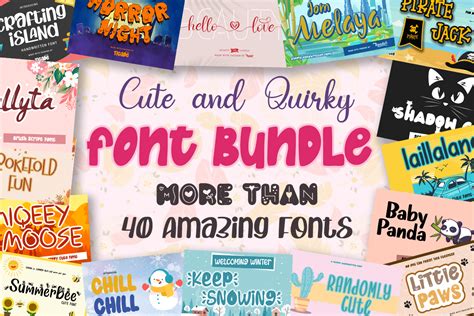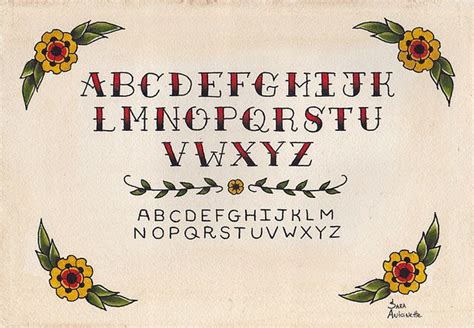
Procreate, a powerful digital art application for iPad, has revolutionized the way artists create, especially within the realm of tattoo design. A crucial element in bringing a tattoo concept to life digitally, or even for creating flash sheets and client consultations, is the selection of appropriate fonts. The world of tattoo fonts for Procreate is vast and varied, encompassing a multitude of styles that cater to every aesthetic imaginable. From the sweeping elegance of calligraphy to the bold, raw energy of graffiti, and the timeless charm of traditional lettering, these fonts offer a digital canvas for expressing intricate and impactful typography.
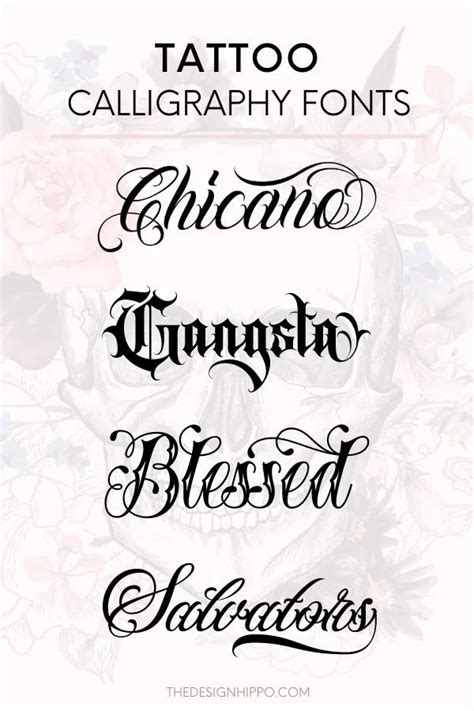
The Allure of Calligraphy Fonts in Procreate
Calligraphy fonts offer a sense of fluidity, elegance, and a deeply personal touch, making them a popular choice for Procreate tattoo designs. These fonts often feature beautiful, sweeping strokes that can evoke a romantic or sophisticated feel. Whether it’s a classic, elegant script with delicate flourishes or a more modern interpretation with bolder lines, calligraphy fonts allow for a dynamic range of expression. Some calligraphy fonts are designed with an organic texture, mimicking the natural imperfections and character of hand-drawn ink, while others boast unique angled strokes that create a distinct visual rhythm. The versatility of these fonts means they can be adapted for various design projects beyond tattoos, including fashion posters, apparel branding, and decorative elements, adding a touch of refined artistry to any creation.
For those seeking a romantic look and feel, modern calligraphy fonts present a captivating option. These fonts often combine the grace of traditional script with contemporary design sensibilities, offering a fresh and stylish aesthetic. Many of these modern calligraphy fonts are PUA encoded, which means they include a wide range of extra characters, ligatures, and stylistic alternates. This encoding unlocks a wealth of creative possibilities, allowing users to customize their lettering with swashes, extended Latin characters, and unique ligatures, ensuring a truly bespoke outcome for their Procreate designs.
Handwriting Fonts: The Personal Touch in Digital Art
Handwriting fonts bring an informal, approachable, and distinctly personal feel to digital art, making them an excellent choice for Procreate users looking to add a unique touch to their projects. These fonts can be perfect for lettering in comics, imbuing artwork with a hand-drawn feel, or simply for adding a casual, relatable element to designs. The spectrum of handwriting fonts is broad, ranging from neat and uniform styles to more free-flowing and expressive letterforms.
Some handwriting fonts emulate a bubbly, informal style, offering a playful character that can be amplified by variations in the baseline, giving the text a lively and energetic appearance. Others might incorporate serifs, reminiscent of traditional print, but with the relaxed sensibility of handwriting. The organic variety found in some handwriting fonts mimics the natural inconsistencies of human script, adding authenticity and charm. These fonts are ideal for a wide array of applications, from personal journaling-style artwork to branding that seeks a friendly and accessible voice. They can even be used for display purposes where a unique, characterful font is desired.
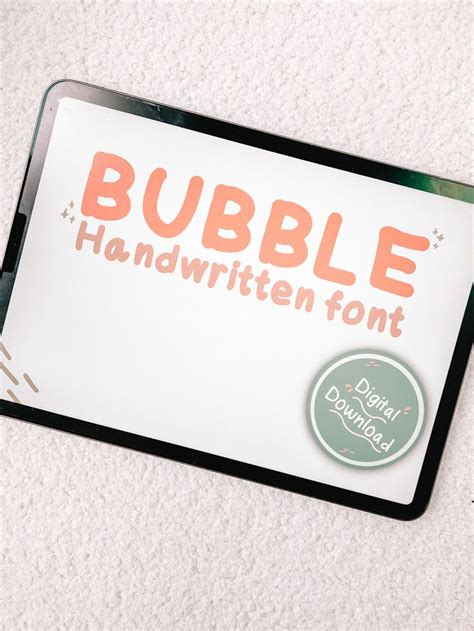
Brush Fonts: Capturing Energy and Texture
Brush fonts in Procreate are celebrated for their ability to convey energy, movement, and tangible texture, making them a dynamic choice for a variety of artistic endeavors. These fonts often feature visible strokes that mimic the application of paint or ink with a brush, providing a sense of immediacy and artistic flair. The texture in brush fonts can range from subtle to pronounced, adding a rich visual depth to lettering.
Brush fonts don't always adhere to a script-like appearance; they can manifest in various forms, from bold and impactful to more refined and artistic. Some brush fonts are characterized by long, sweeping strokes that imbue the text with a sense of motion, while others are designed to be bursting with energy, exuding a raw and powerful aesthetic. The texture in these fonts can be a defining feature, adding a tactile quality that stands out. For instance, a font like Granite Brush Font for Procreate might be ideal for designs that require a bold, energetic statement.
Beyond the intensely textured styles, there are cleaner brush fonts that still retain the essence of the brush aesthetic in their letterforms. These fonts offer a more streamlined look while still benefiting from the artistic character of brush strokes. They can be energetic and memorable, adding a distinctive visual appeal against various backgrounds and design elements. Unusual and memorable aesthetics can be achieved with unique brush fonts, some of which are thick and dramatic, featuring highly visible strokes and textured outer contours that create a striking visual impact. These fonts are not just for digital art; their expressive nature makes them suitable for a wide range of design applications, including posters, apparel, and graphic design.
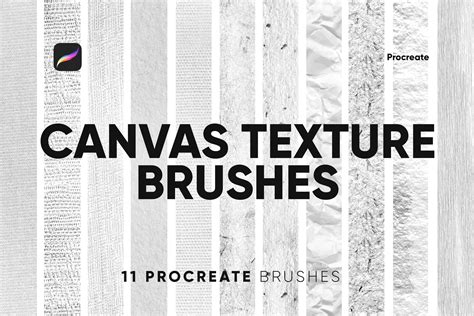
Cute Fonts: Adding Whimsy and Personality
Cute fonts for Procreate designs are all about injecting a sense of charm, playfulness, and endearing personality into your artwork. These fonts are perfect for a wide range of projects, from illustrations and digital art to branding and social media graphics, where a lighthearted and engaging tone is desired. The aesthetic of cute fonts can vary significantly, offering diverse ways to add a touch of sweetness and fun.
One popular style within cute fonts features a chunky, cut-out look and feel, giving the letters a solid, almost three-dimensional appearance. Other cute fonts might take inspiration from brush styles but push the aesthetic in a fun, curly, and whimsical direction, creating a unique visual blend. Some fonts are intentionally designed to be funny and full of personality, perhaps incorporating "cheese holes" or other playful design elements that make them stand out. For those who love a swirly, cute look, many fonts offer elaborate flourishes and decorative elements that add to their charm.